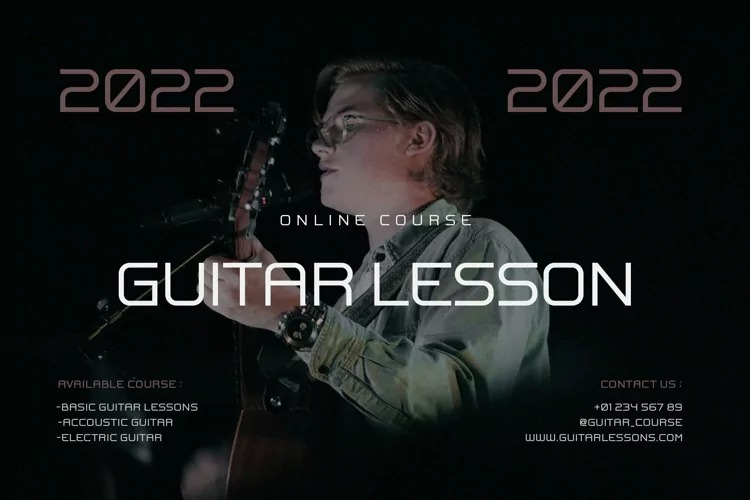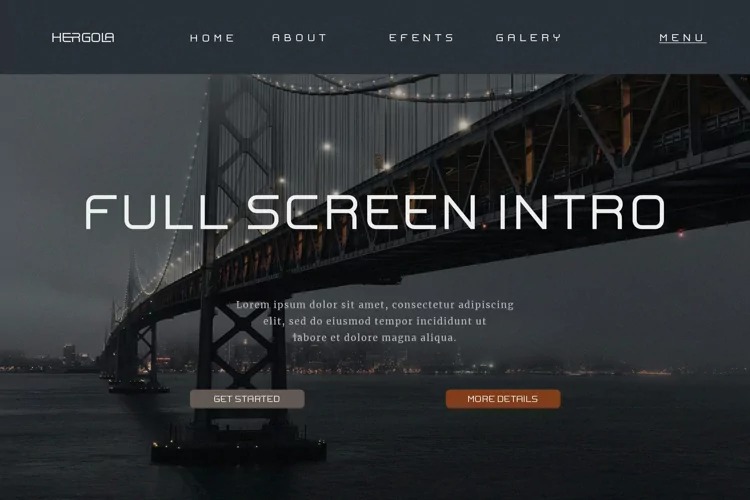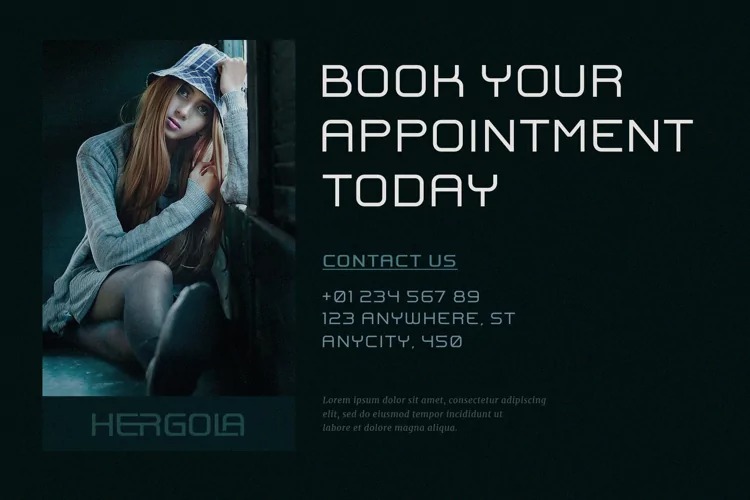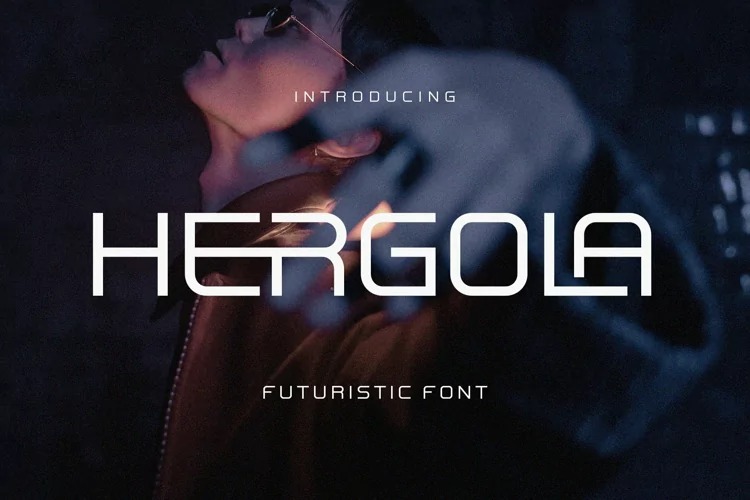
Hergola Sans Serif Font
This is a modern and minimalist sans-serif font. The combination of minimal and geometric elements renders a modern design. Hergola is a futuristic and modern typeface, best used as a display for headings, logos, branding, magazines, product packaging and invitations. Hergola come with clean lines and smooth curves give any project an extra touch of class.